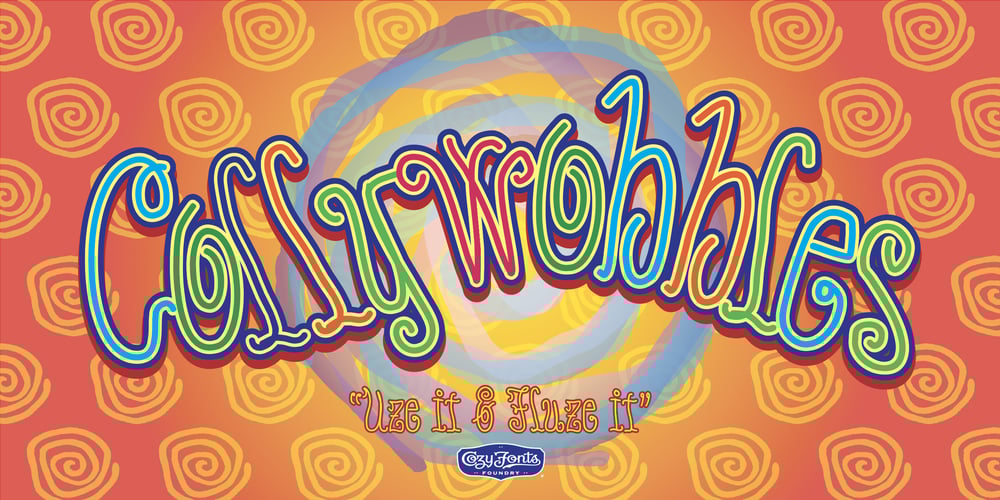
Fluze
Fluze font
Fluze Font Family was designed by Tom Nikosey and published by CozyFonts. Fluze contains 2 styles and family package options. The Fluze FontsThis is the 21st font release from CozyFonts Foundry, a California Font Foundry established in 2011 with it’s first Official Release in 2012 with the Aladdin Bold Family. Inspirations for the design of this font family, by California Graphic Designer/Illustrator/Font Designer Tom Nikosey, is based on the wacky, weird & quirky films that have graced the screen with their offbeat styles and characters. Movies that come to mind are Mary Poppins, Beetlejuice, Wizard of Oz, Edward Scissorhands, Alice in Wonderland, Little Shop of Horrors, Addams Family, Labyrinth, Ghostbusters, etc.The absurd, the sublime, the animated, the scary, and the illustrated are all descriptors to define the possibilitiesOf the many uses and applications of Fluze and Flute Outline as presented in a sampling of the posters here.The intentional crooked hand drawn’ glyphs and extras lend their personalities to create this effect.Whether in black, white & grays or psychedelic color combos, Fluze can be comical, frightening andDownright irreverent.This font works as main titles, end titles, branding, signage, numeric displays and even logotypes and monograms. Have fun and let your inner cartoonist inspire.